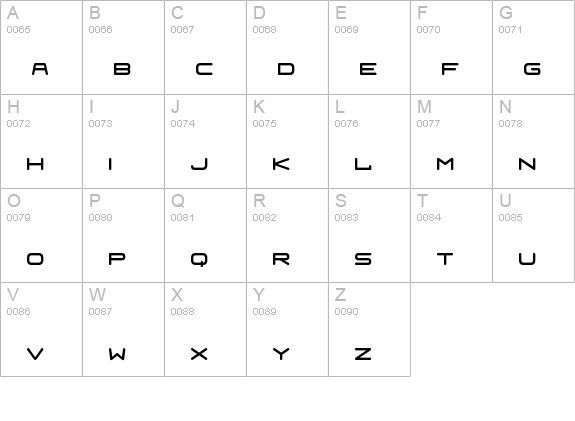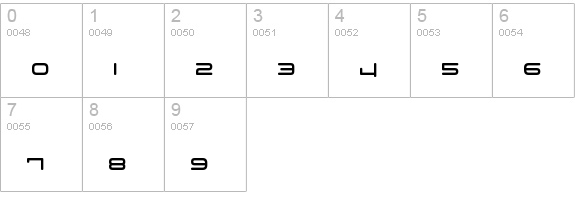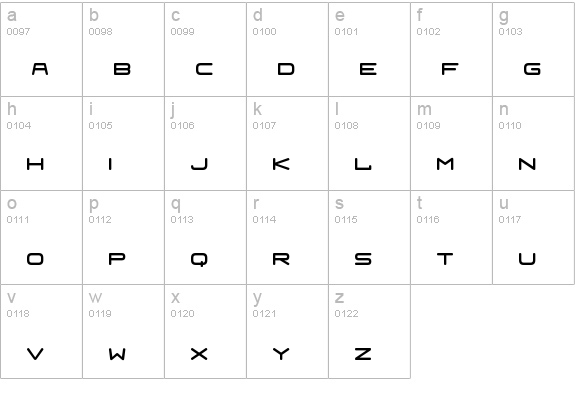
Fraulein Font Details
Fraulein font is a stunning typeface that exudes elegance and sophistication. With its delicate curves and graceful lines, Fraulein font adds a touch of charm to any design project. Whether you're working on a wedding invitation, a branding project, or a social media post, Fraulein font is sure to make a lasting impression. What's even better is that Fraulein font is completely free to download at FontsMarket.com. This means you can use this beautiful typeface in your projects without any cost, making it a valuable addition to your font collection. So go ahead, download Fraulein font today and elevate your designs with its timeless beauty.